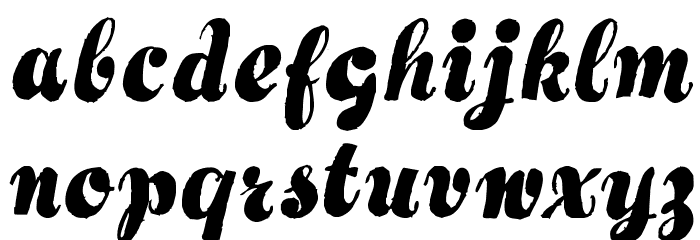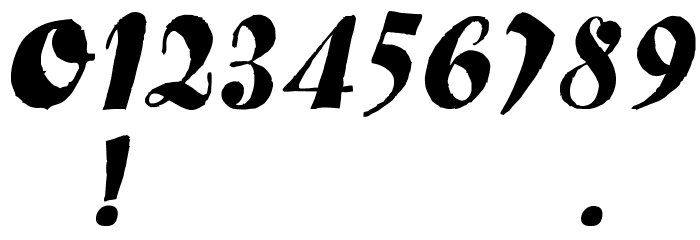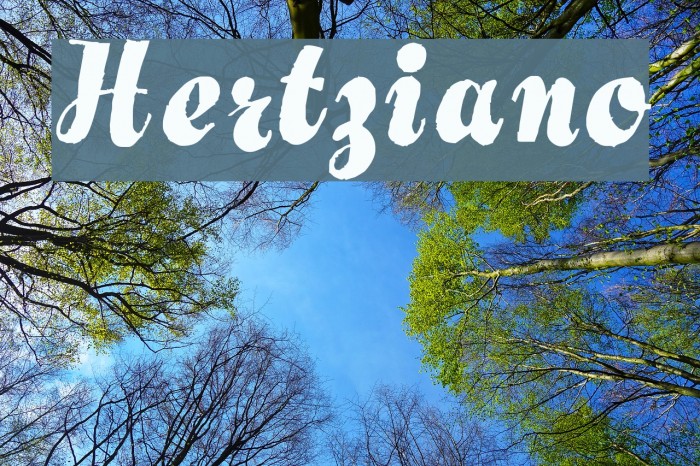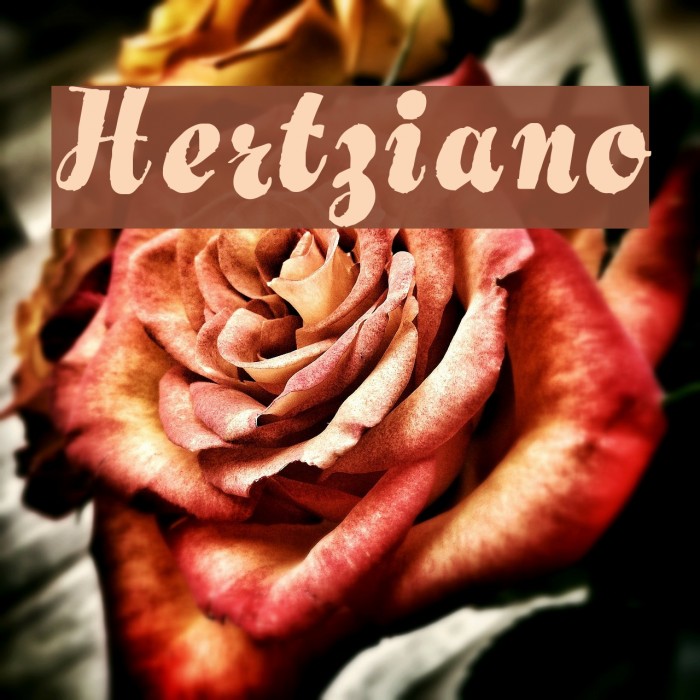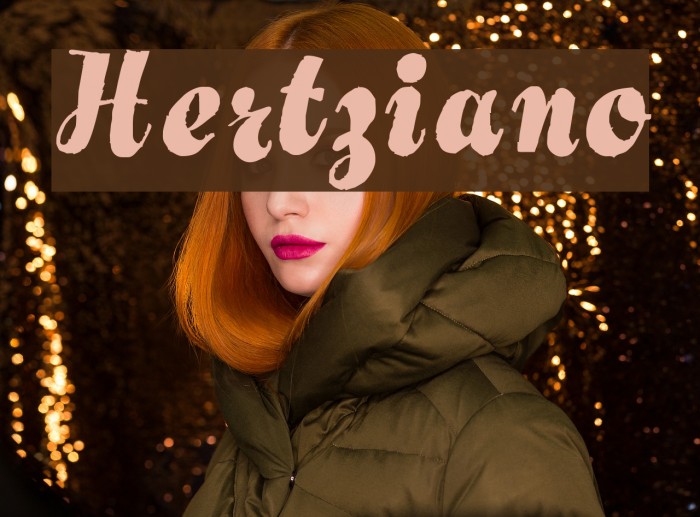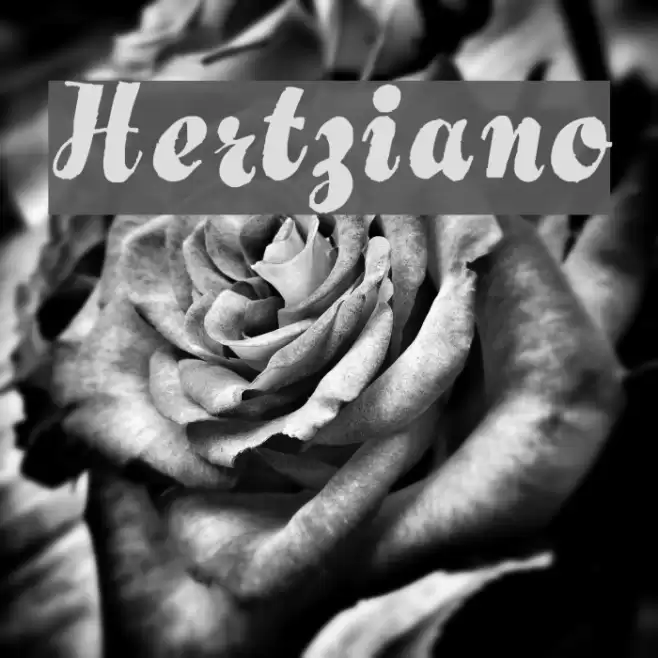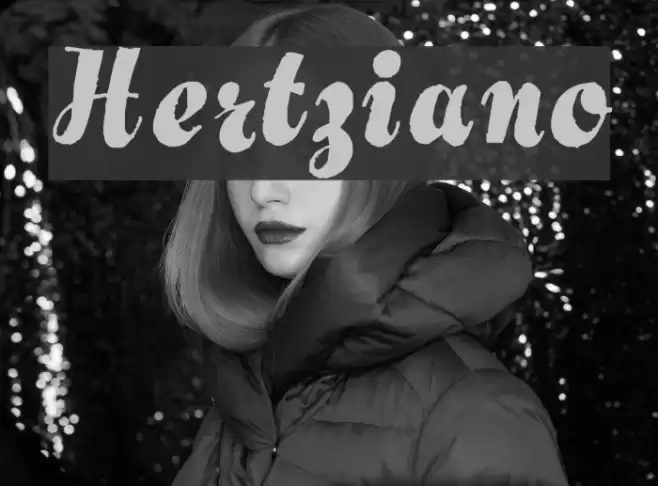
Hertziano Font
This font features a bold and expressive style with a strong calligraphic influence. The characters are crafted with thick strokes and high contrast, giving them a dramatic and artistic appearance. The uppercase letters are particularly ornate, with flourishes and loops that add a sense of movement and elegance. The lowercase letters maintain a consistent style, complementing the uppercase with their rounded forms and smooth curves. The numerals are equally bold, ensuring readability while maintaining the font's decorative nature. This font is ideal for projects that require a touch of sophistication and flair.
A bold, calligraphic font with high contrast and ornate details.
- Proposed Projects: Ideal for wedding invitations, luxury branding, artistic posters, and elegant signage.
- Use Case: Logos, Headlines, Invitations